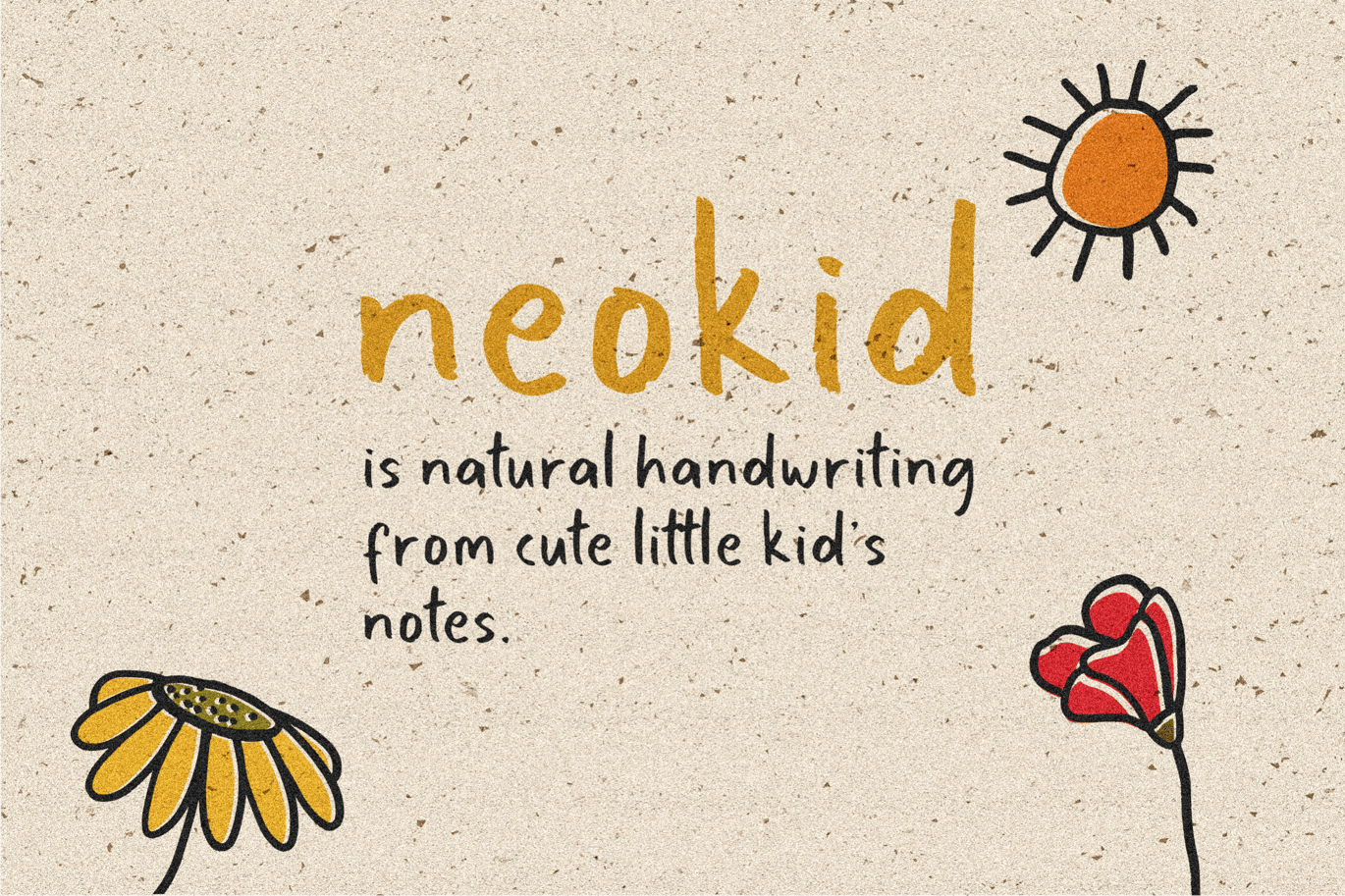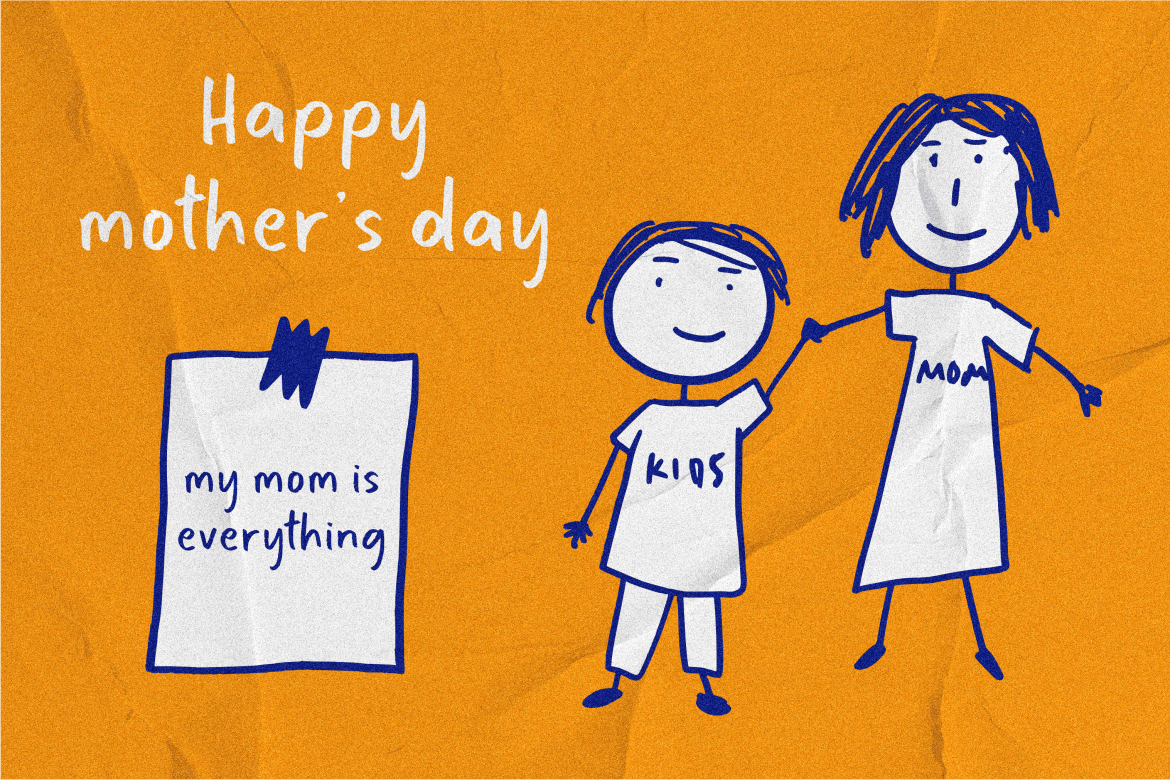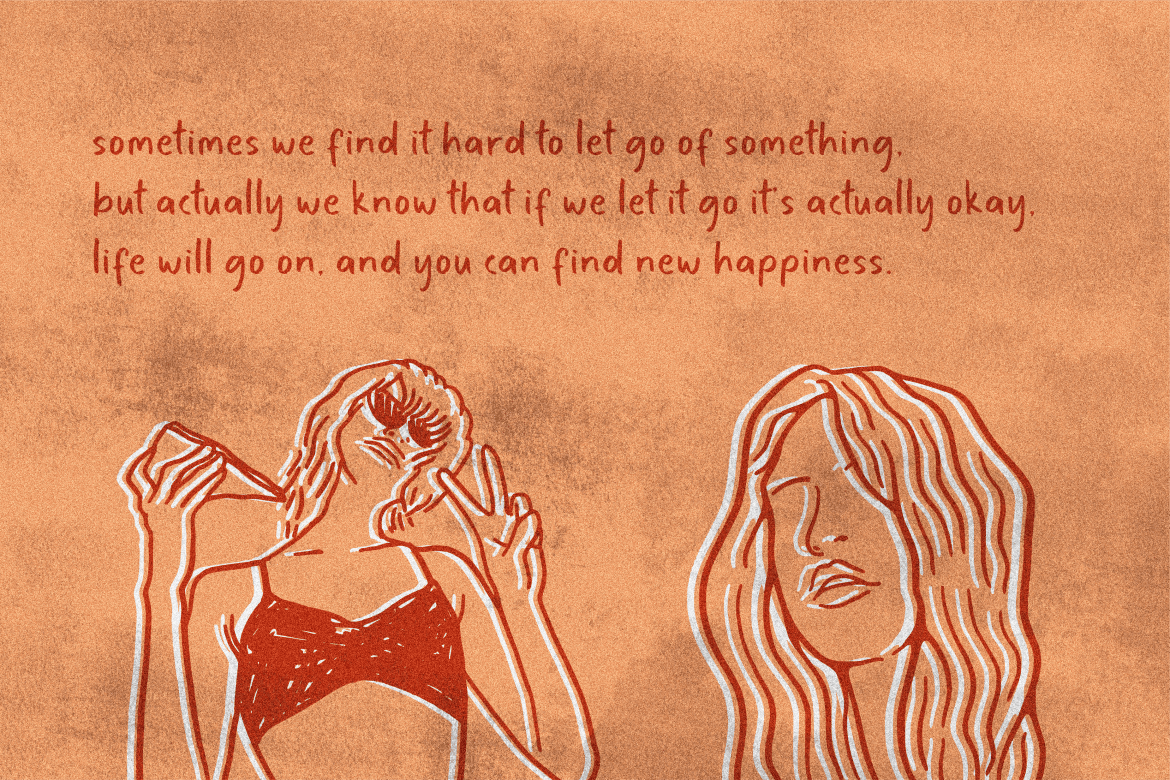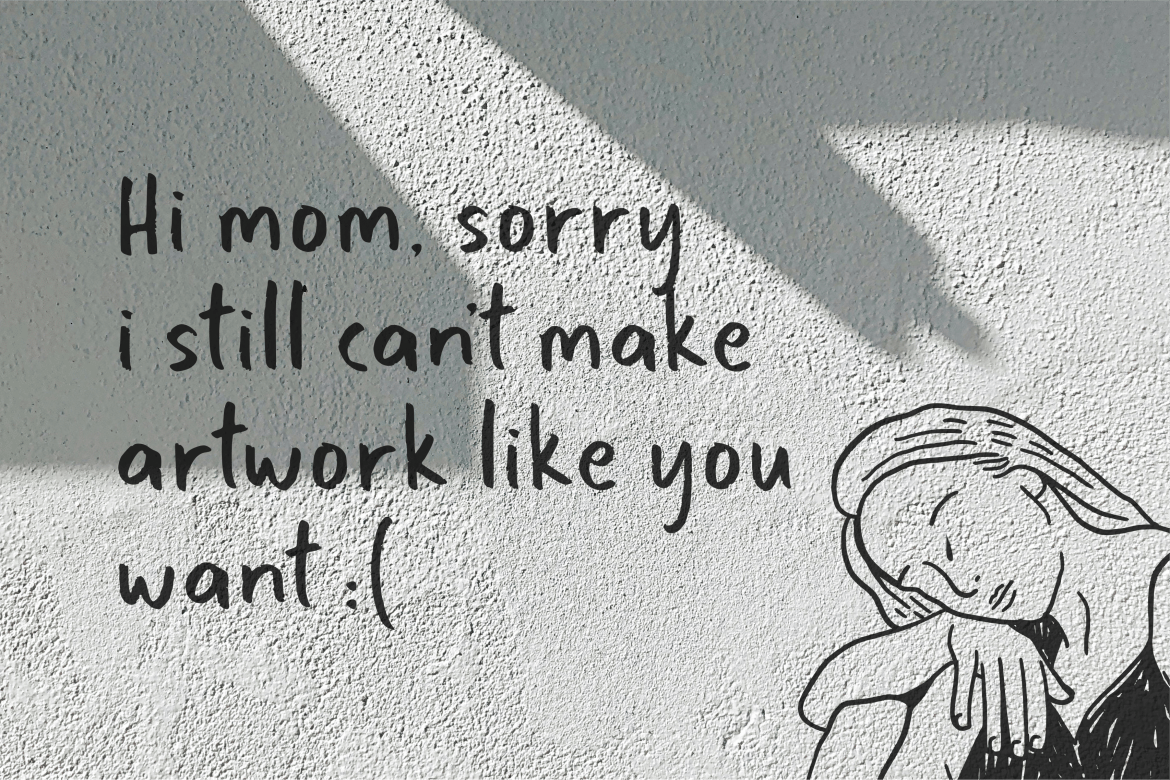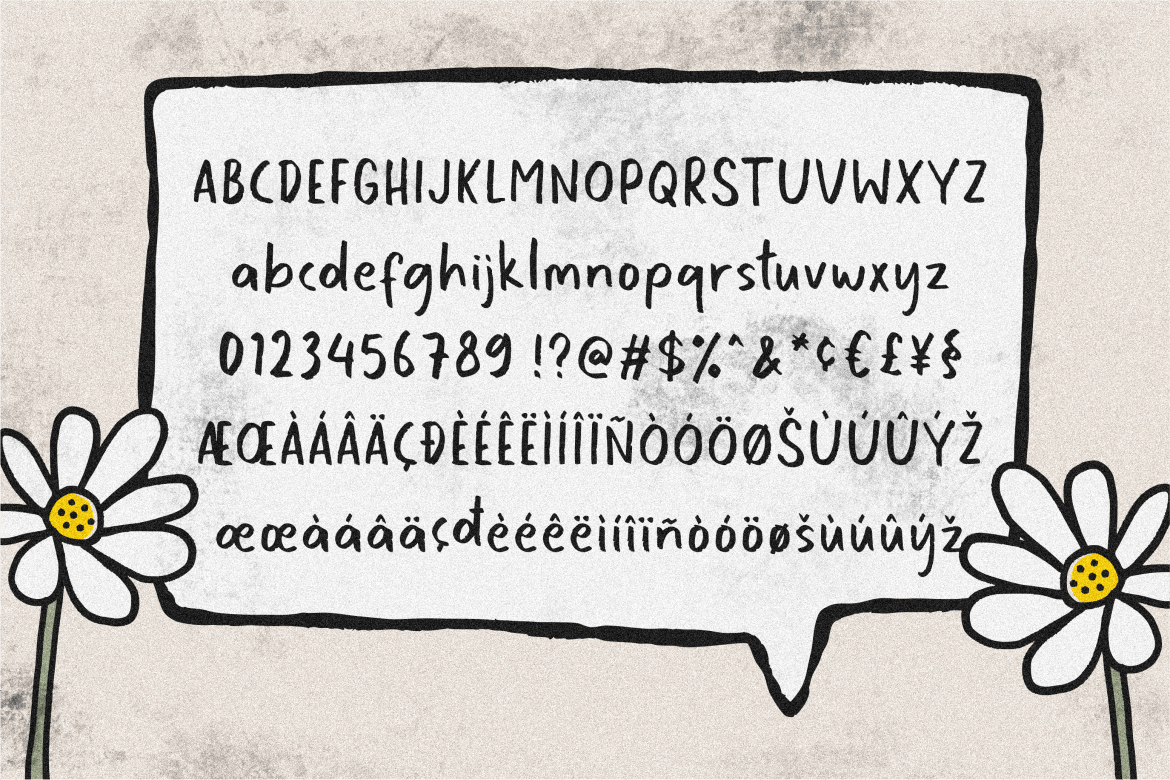
Neokid Handwriting Font
Inspired by my childhood handwriting when I first learned to write, I approached it to make it look quite natural, perfect for quotes, social media, posters, logos, packaging designs and others.